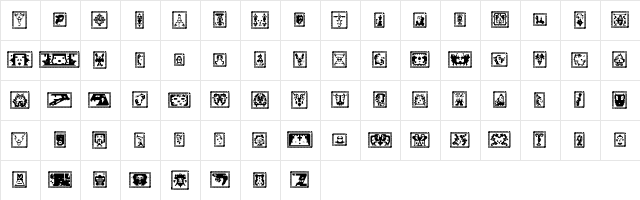
TESTAMENT B / Formaldhyde 1 ࠸0 Regular
Design Context for TESTAMENT B / Formaldhyde 1 ࠸0 Typeface
TESTAMENT B / Formaldhyde 1 ࠸0 is a composed and adaptable typeface that performs quietly and consistently across a wide range of design contexts.